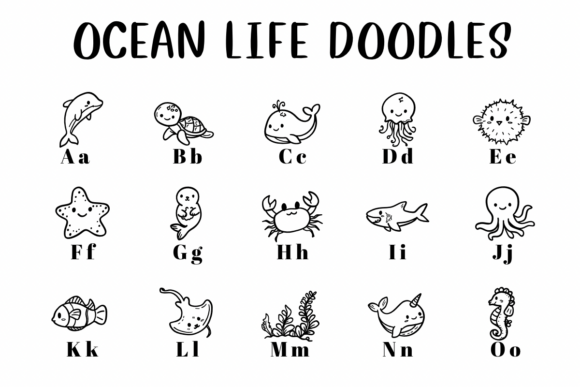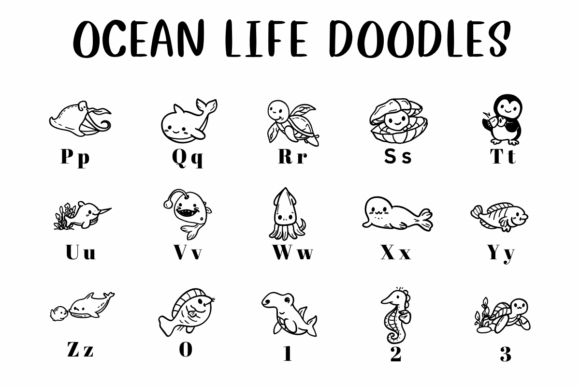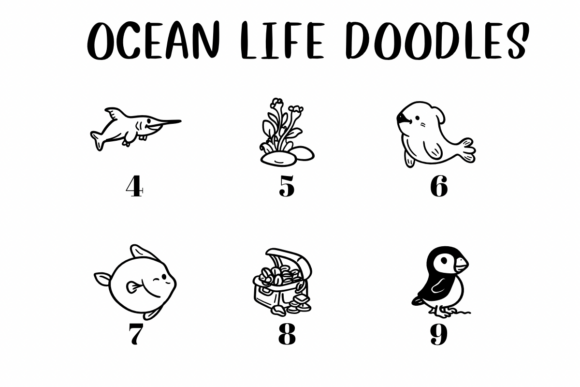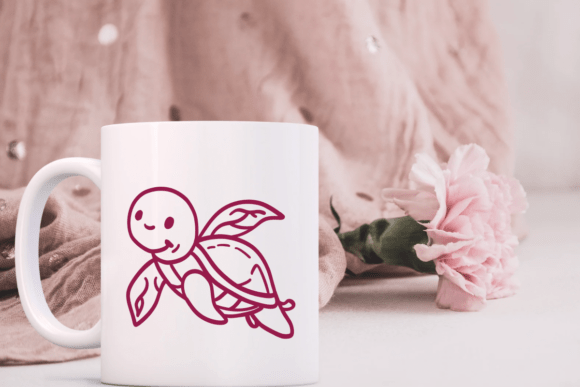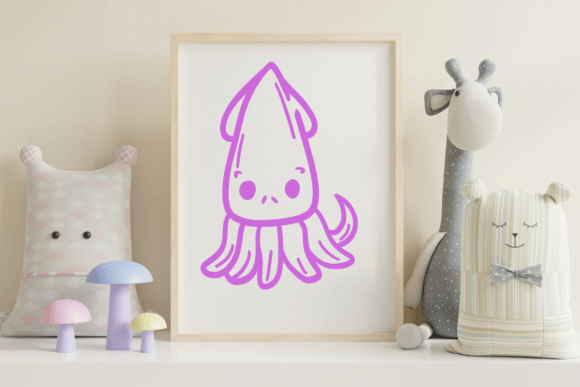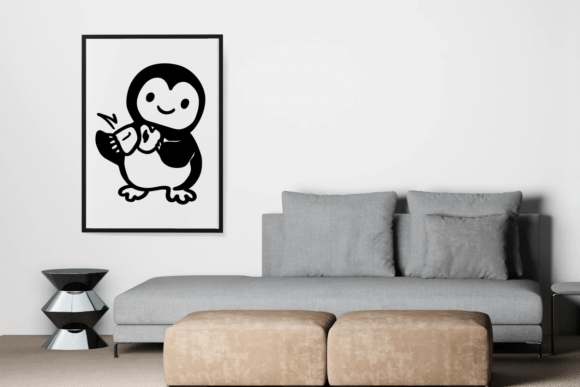
Introduction to Ocean Life Doodles Font
Remember that moment when you’re brainstorming ideas for a creative project, and the perfect design element slips right out of your mind? You know, that one thing that would make your DIY project or wedding invitation truly pop. For designers and crafty individuals, finding the right design resource can be a game-changer.
Enter the Ocean Life Doodles Font – a high-quality dingbats font that’s about to become your new best friend. With its sketch-style design and transparent background, this font is perfect for adding a whimsical touch to your creative projects. From logos to decorations, the Ocean Life Doodles Font is sure to bring your ideas to life.
Key Features of Ocean Life Doodles Font
- High-quality design resource ideal for creative projects, including illustrations, graphics, and digital art.
- Unique, hand-drawn doodles of ocean life, including fish, seaweed, and other marine creatures.
- Transparent background, making it easy to overlay on any image or design without a white box.
Honest Review: Ocean Life Doodles Font
I recently stumbled upon the Ocean Life Doodles Font and was excited to dive in and see what it had to offer. As a designer, I’m always on the lookout for high-quality design resources to elevate my creative projects.
Here’s what works well:
- ✨ The font is incredibly versatile, with a wide range of ocean-inspired doodles that can be used in various contexts.
- ✨ The transparent background makes it easy to overlay the doodles on top of other design elements.
- ⚠️ Some of the doodles may be too small or intricate for certain designs, requiring additional editing.
Overall, I’m impressed with the Ocean Life Doodles Font and would recommend it to designers working on creative projects that involve ocean or beach themes. While it has its limitations, the font’s high quality and versatility make it a valuable addition to any design resource library.
Tips for Getting the Most Out of Ocean Life Doodles Font
Use the Ocean Life Doodles Font on a transparent background to create a sense of depth and dimension in your design. Experiment with different font sizes and colors to create a visually appealing design. You can also combine the font with other design elements, such as images or illustrations, to create a unique and creative project.
The Ocean Life Doodles Font is perfect for designing children’s books, educational materials, or marketing materials related to the ocean or marine life. It’s also great for creating social media graphics, posters, or flyers for events or campaigns related to ocean conservation.